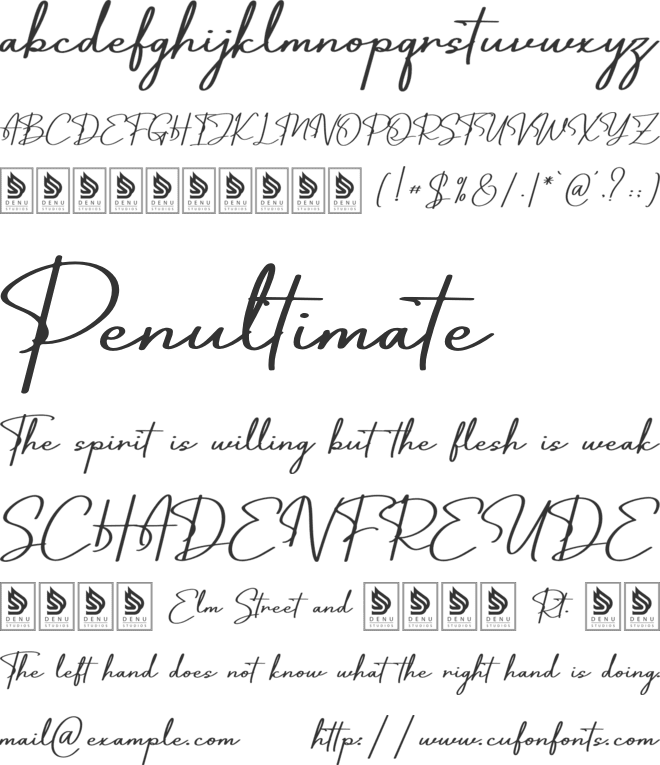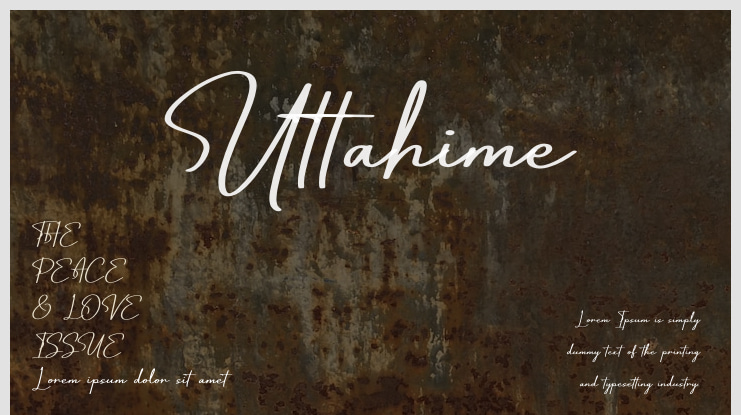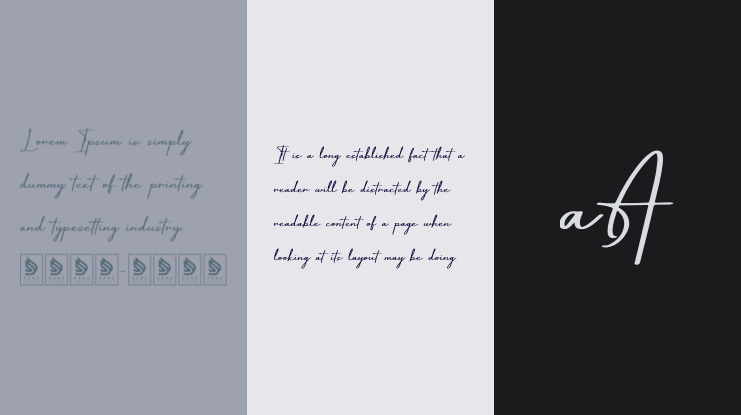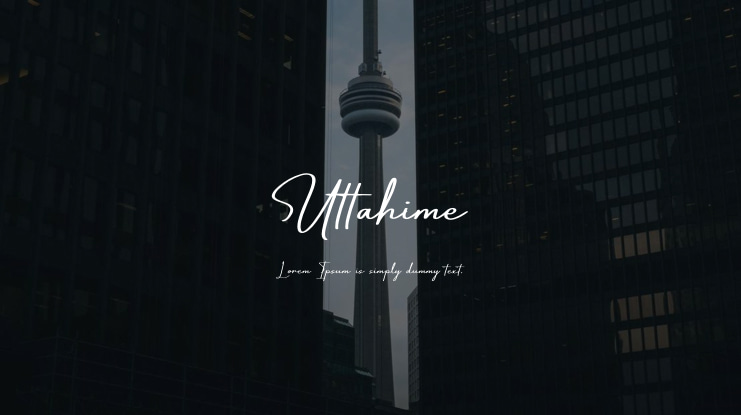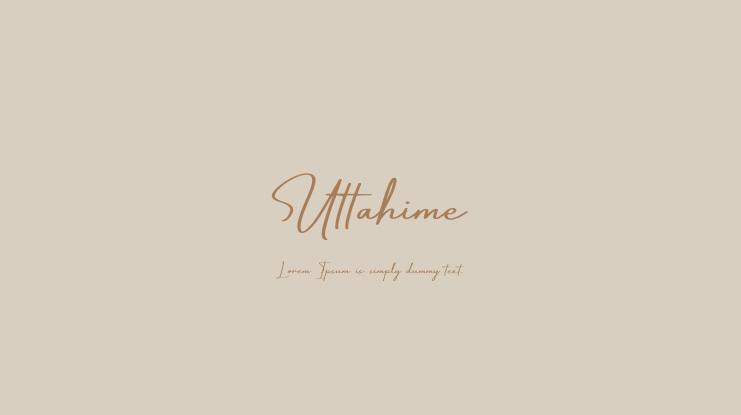
Uttahime Font
**Uttahime | Modern Signature Font** is suitable for a wide range of projects, including but not limited to: logos, branding projects, homeware designs, product packaging, mugs, quotes, posters, shopping bags, t-shirts, book covers, name cards, invitation cards, greeting cards, labels, photography, watermarks, special events, and all other projects needing a modern signature script touch.